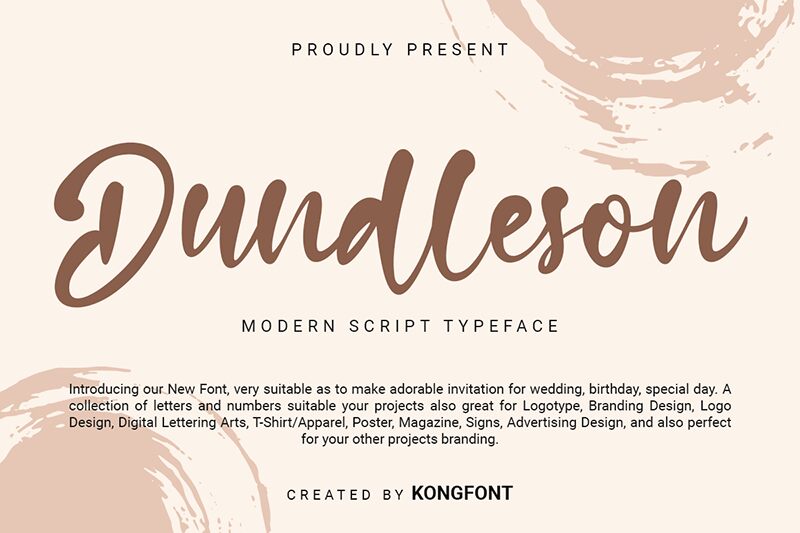
Dundleson
Dundleson, the latest creation by Kong Font, is a versatile brush font that can add a touch of personality to any project. Its handcrafted style exudes an authentic feel and can be utilized in various designs, from social media graphics to product packaging. With its wide range of weights, Dundleson offers endless possibilities for designers looking for a unique and customizable font. Whether you're designing a trendy fashion brand or creating an eye-catching poster, this semi-bold typeface is sure to make an impact. Try Dundleson today and elevate your designs to the next level!